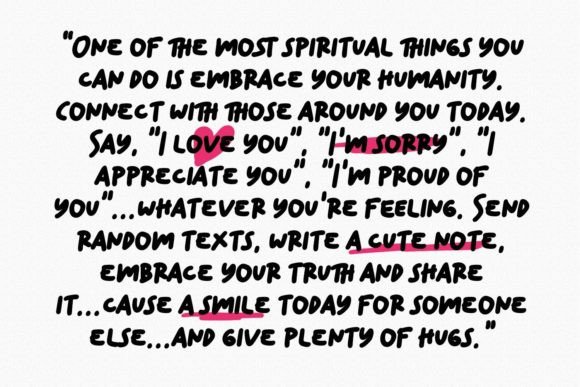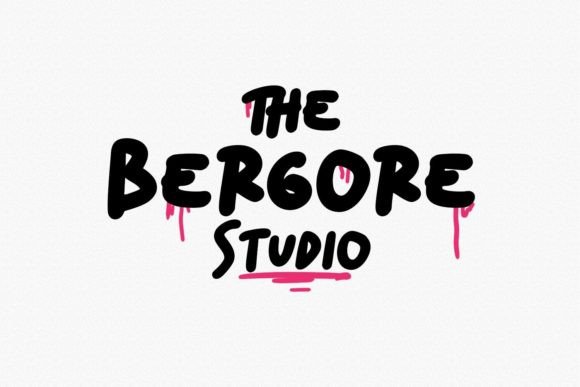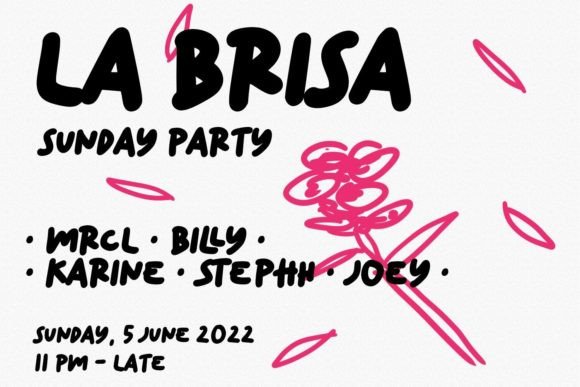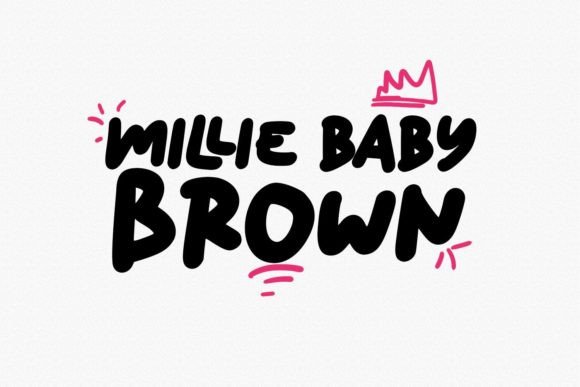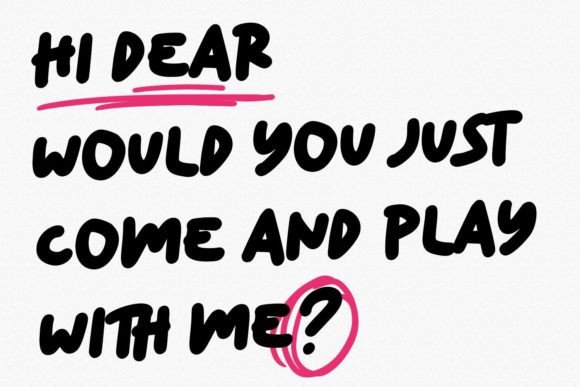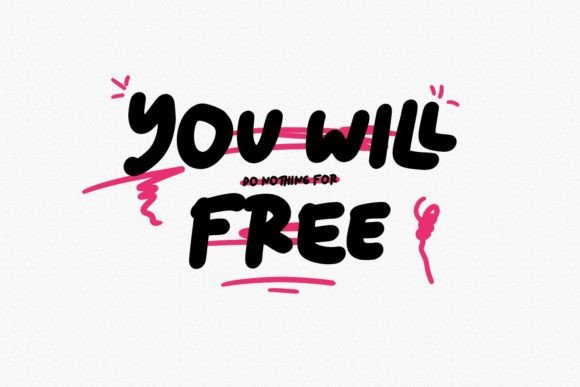
Bumbees Font: The Perfect Casual Marker Handwritten Font for Your Creative Projects
Are you a designer or crafter looking for a unique and versatile font to elevate your creative projects? Look no further than Bumbees Font! This casual marker handwritten font is designed to bring a touch of personality and whimsy to your designs, making it perfect for a wide range of applications.
What is Bumbees Font?
Bumbees Font is a carefully crafted handwritten font that boasts beautiful and well-balanced characters. Its casual, marker-style feel gives it a friendly and approachable vibe, making it ideal for designs that require a personal touch. Whether you’re working on a branding project, creating social media graphics, or crafting invitations and cards, Bumbees Font is sure to make your designs stand out.
Key Features of Bumbees Font
So, what makes Bumbees Font so special? Here are just a few of its key features:
- Beautiful and well-balanced characters: Each character in Bumbees Font has been carefully designed to be visually appealing and harmonious, ensuring that your text looks great in any context.
- Casual marker feel: The font’s marker-style feel gives it a fun and relaxed vibe that’s perfect for designs that need to feel friendly and approachable.
- Versatile: Bumbees Font is highly versatile, making it suitable for a wide range of designs, from bold and playful to soft and elegant.
- Branding and logos: Use Bumbees Font to create a unique and memorable brand identity that stands out from the crowd.
- Social media graphics: Add a personal touch to your social media posts and stories with Bumbees Font.
- Invitations and cards: Create beautiful and eye-catching invitations and cards with Bumbees Font.
- Packaging and labels: Use Bumbees Font to add a touch of personality to your product packaging and labels.
Why Choose Bumbees Font?
With so many fonts to choose from, why should you choose Bumbees Font? Here are just a few reasons:
- Unique and distinctive: Bumbees Font is a one-of-a-kind font that will help your designs stand out from the crowd.
- Easy to read: Despite its casual feel, Bumbees Font is highly legible, making it perfect for body text and headlines.
- Highly versatile: Bumbees Font can be used in a wide range of designs, from digital projects to print materials.
In conclusion, Bumbees Font is a fantastic choice for designers and crafters looking for a unique and versatile font to elevate their creative projects. With its beautiful and well-balanced characters, casual marker feel, and high legibility, Bumbees Font is sure to become a go-to font in your collection. So why wait? Download Bumbees Font today and start bringing your most creative ideas to life!
Whether you’re a seasoned designer or just starting out, Bumbees Font is a great addition to your font library. Its ease of use, versatility, and unique feel make it perfect for a wide range of applications. So go ahead, get creative, and see how Bumbees Font can help you take your designs to the next level!